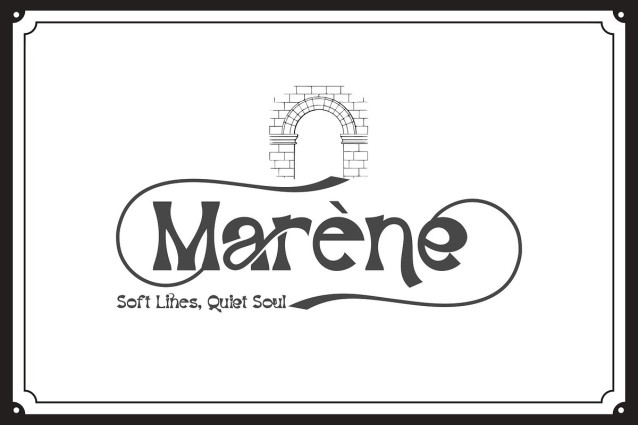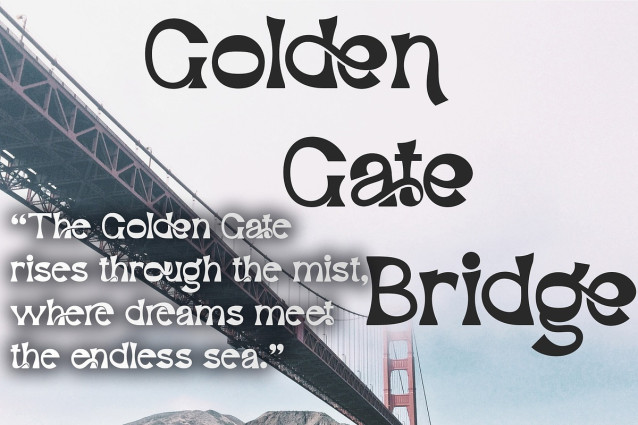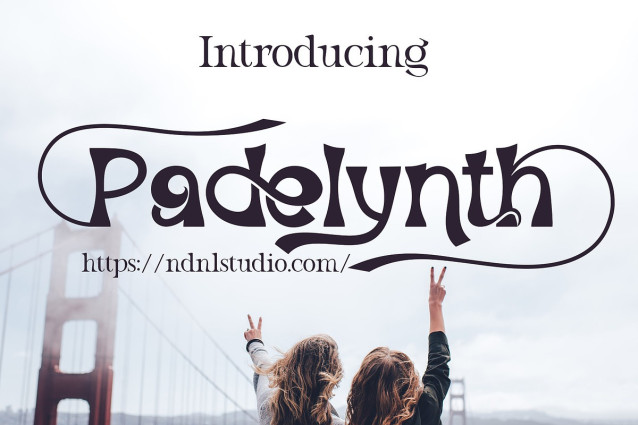
Padelynth Font
Padelynth Font is a bold and artistic serif font crafted to make every word feel expressive and unforgettable. With its unique curves, elegant serifs, and playful handcrafted details, Padelynth brings a distinctive personality to your design. Whether used for branding, posters, album covers, wedding invitations, or logo designs, Padelynth turns typography into visual art.